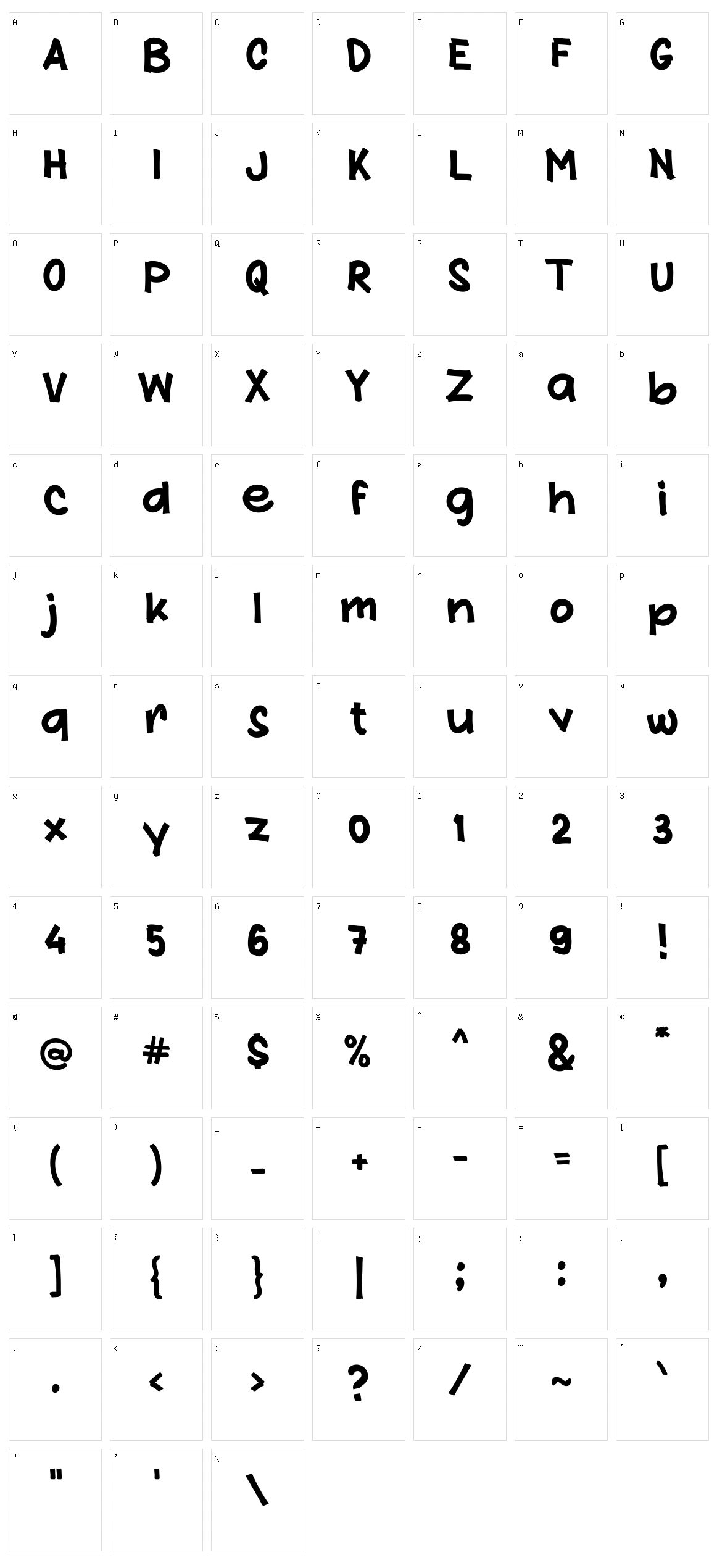
The free font b Banjir Hadiah is carefully designed by wep, showcasing a thoughtful balance of creativity and usability and falls under the Cartoon font style. When you download the ZIP file, it contains only 14.65 KB of font files, making it lightweight and quick to download. Please review the license details below to understand permitted usage and distribution rights. If license information is not available, we recommend using this font for personal projects only or contacting the author directly for commercial usage permissions.